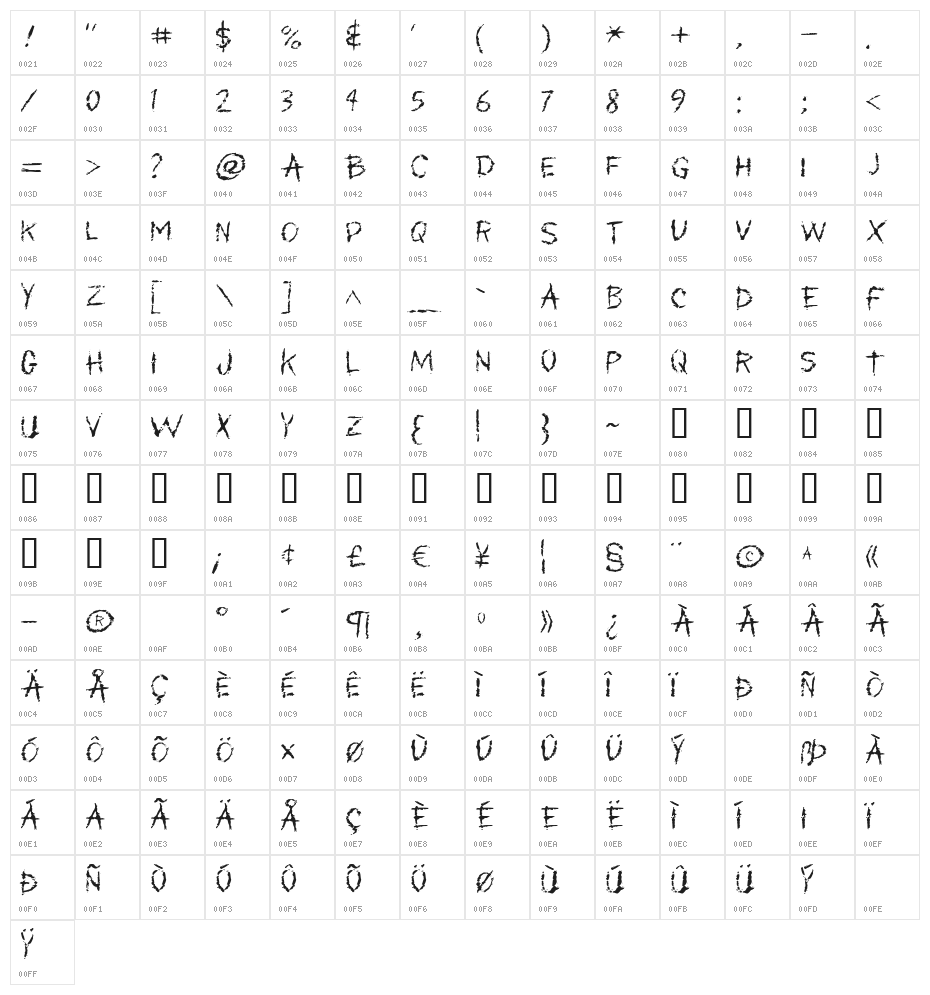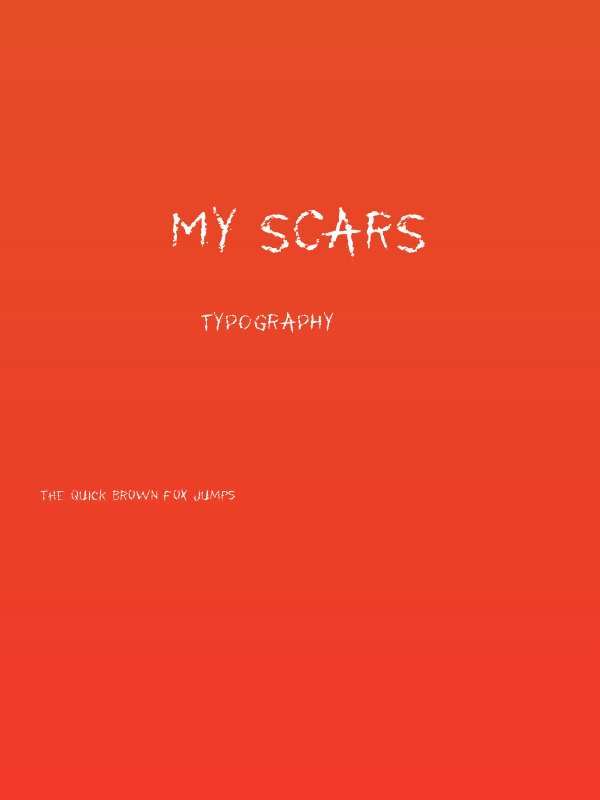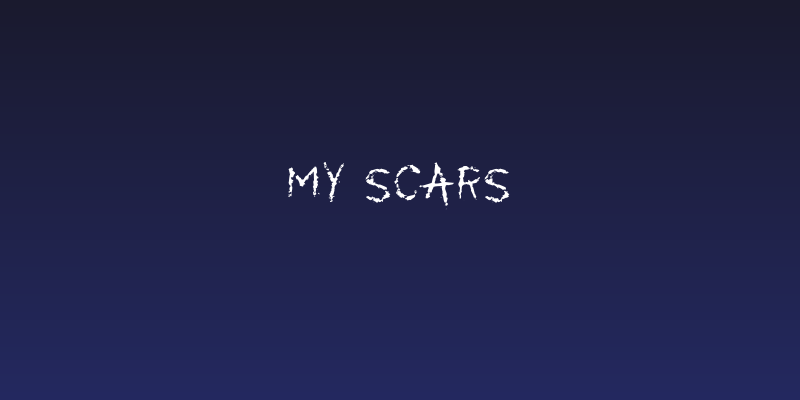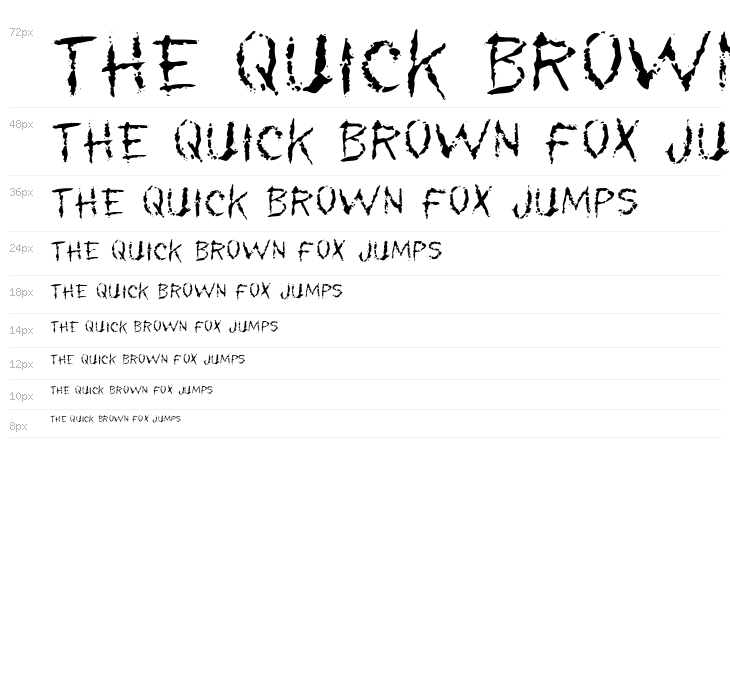
My Scars Font
This font features a distressed and grungy appearance, with characters that appear as if they have been scratched or eroded over time. The rough edges and irregular strokes give it a raw, edgy feel, making it stand out with a unique texture. The uppercase and lowercase letters maintain a consistent style, with numbers and special characters following the same rugged design. This font is ideal for projects that require a bold statement or an artistic touch, capturing attention with its unconventional and striking look.
Overall StyleGrunge, Edgy
Proposed ProjectsPerfect for album covers, posters, streetwear branding, or any project needing an edgy, artistic vibe.